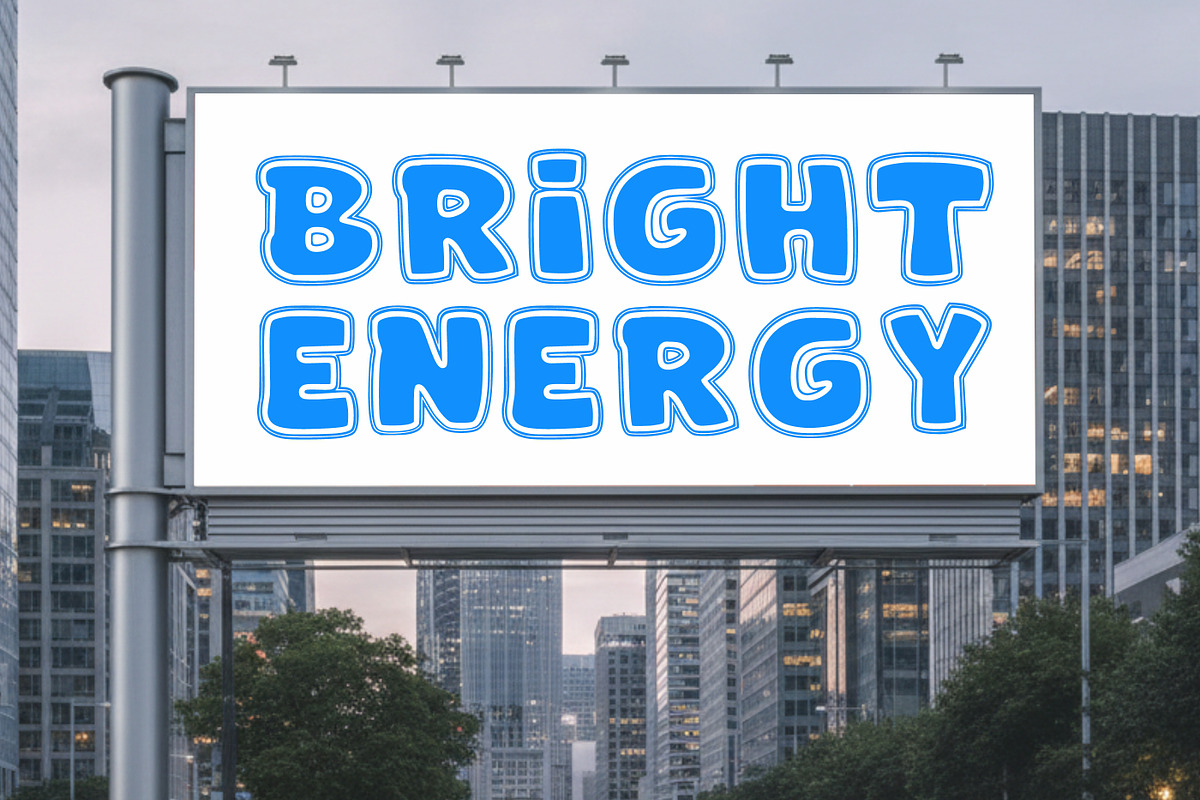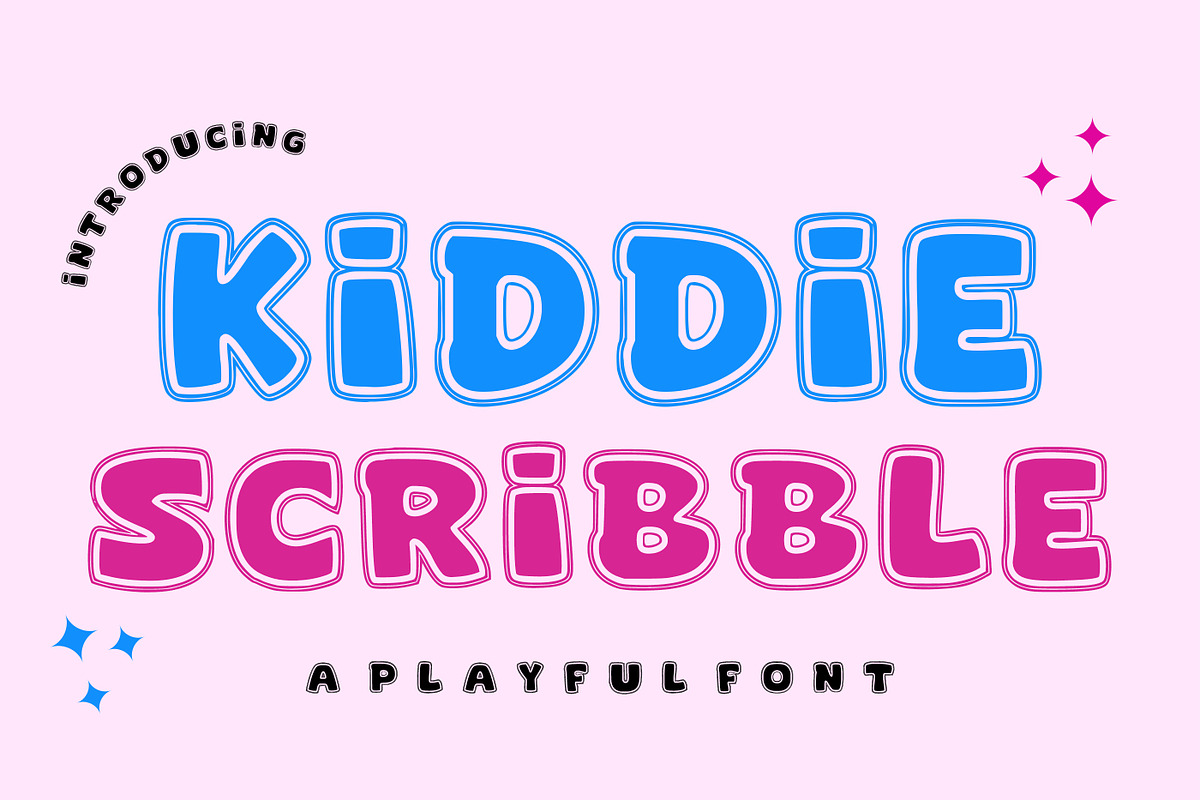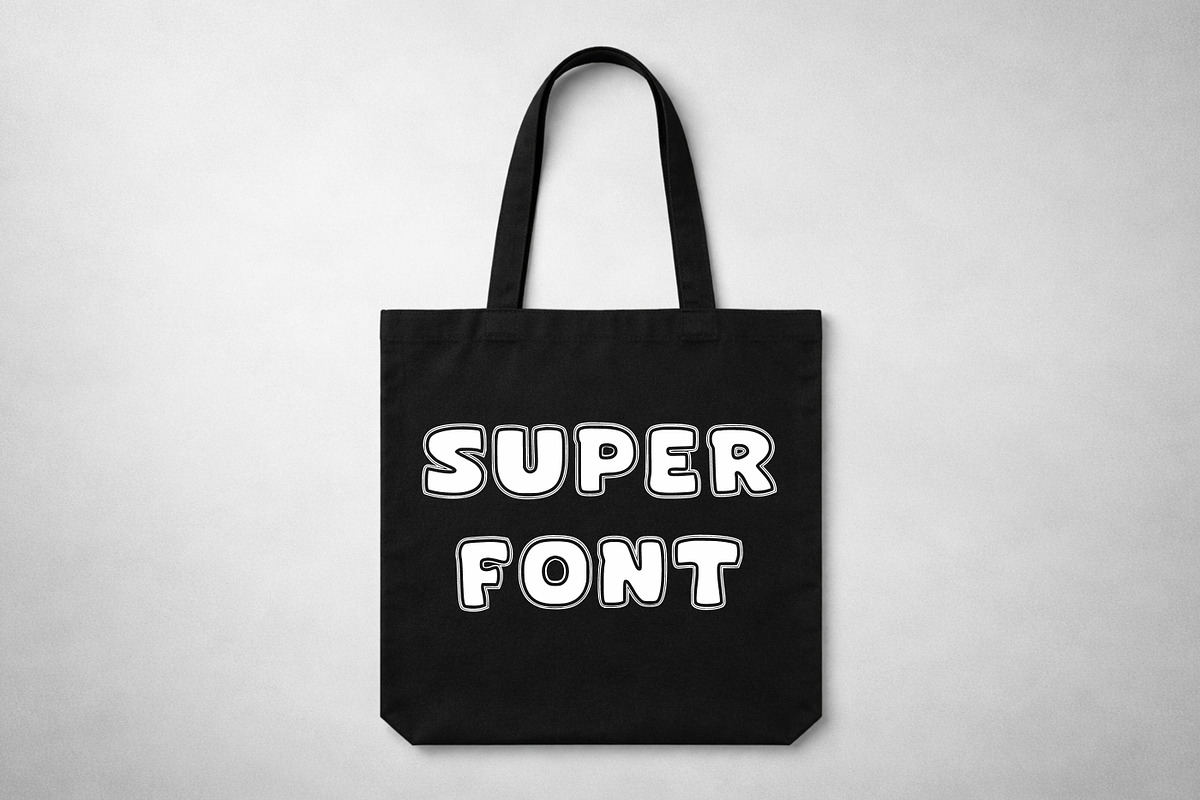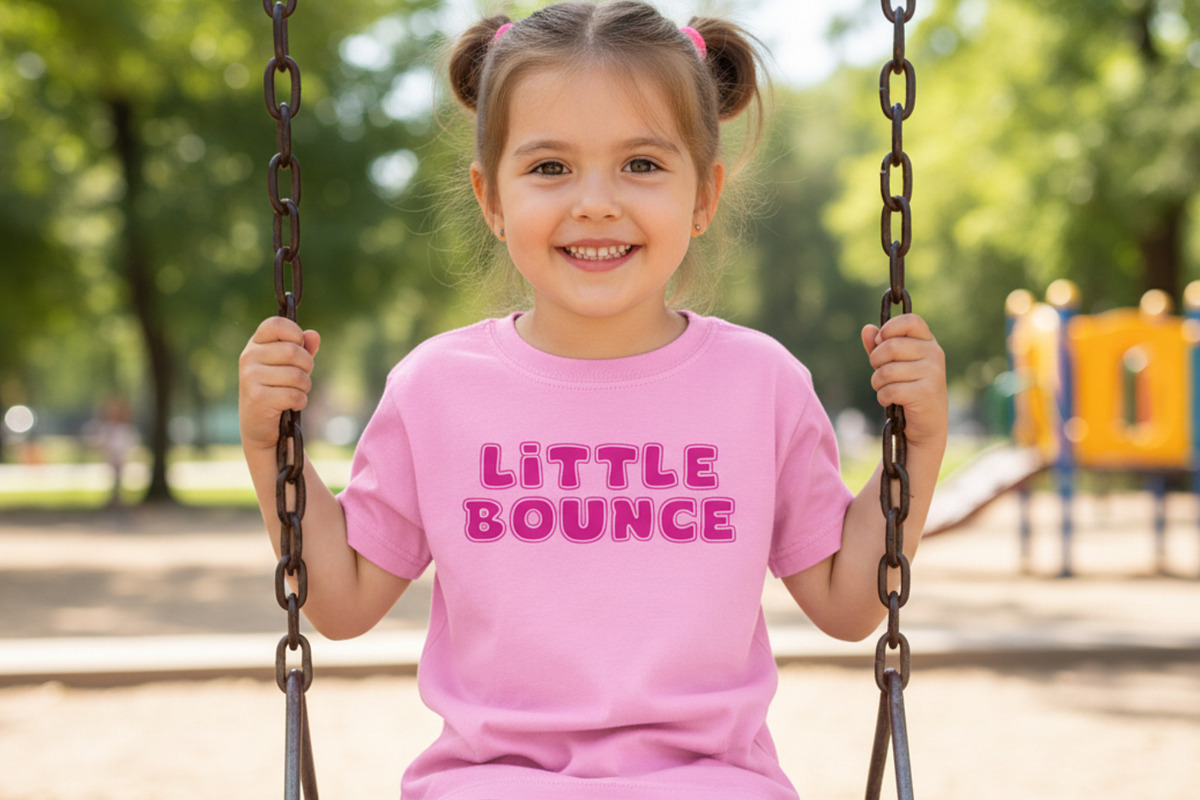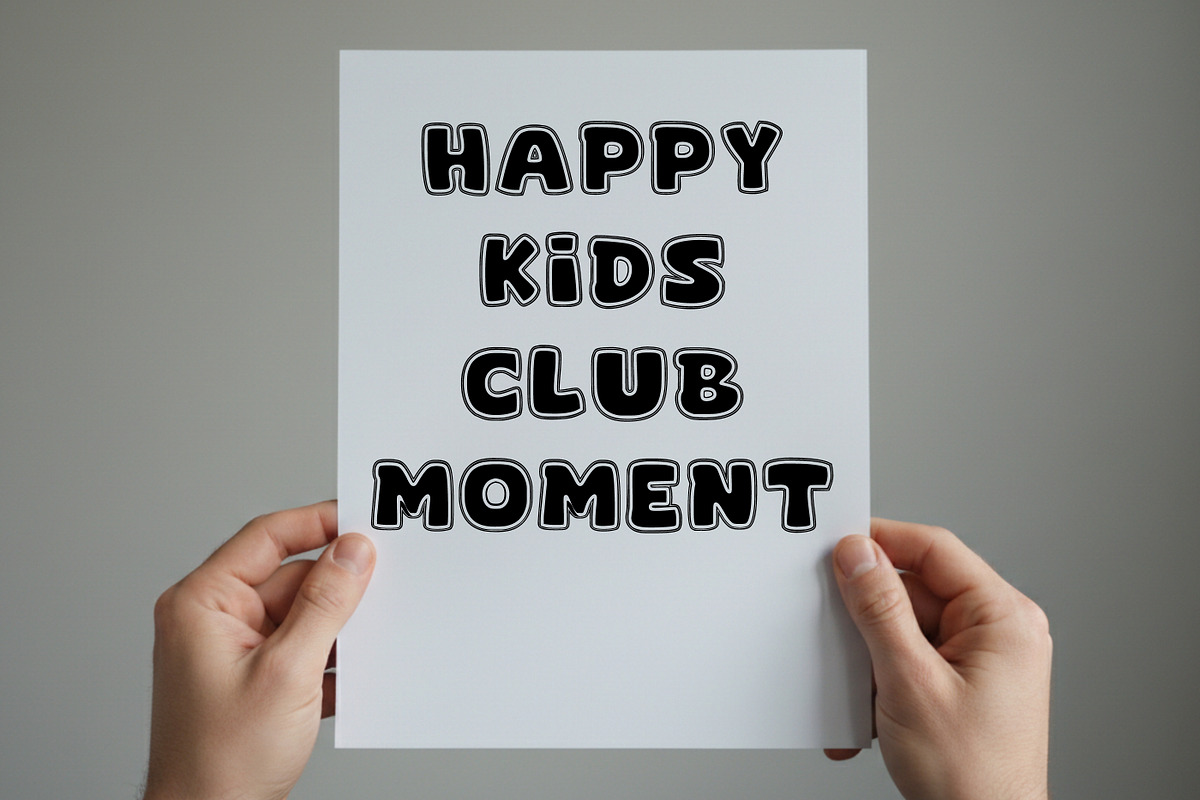
Kiddie Scribble
Kiddie Scribble is a delightful display font that captures the charm of childlike handwriting with a bold, bubbly twist. Its rounded shapes, sketch-style outlines, and playful personality make it ideal for designs that need a fun and energetic vibe.
Perfect for children’s books, school-themed projects, birthday invitations, posters, and branding, Kiddie Scribble adds a joyful and creative touch to any layout. The combination of soft curves and scribble-like detailing gives it a unique handmade feel that stands out effortlessly.